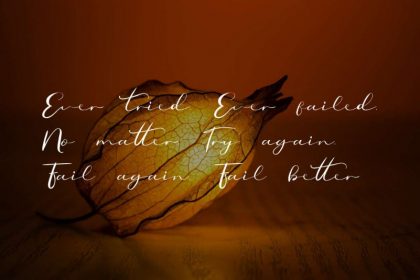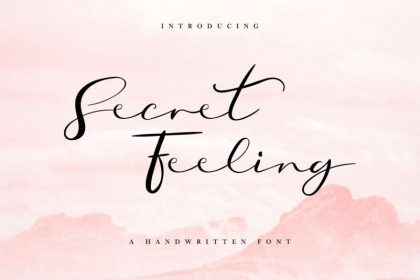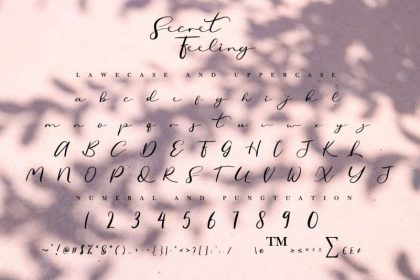
Secret Feeling Calligraphy Font
Introducing Secret Feeling Calligraphy Font. From the office of EdricStudio. Secret Feeling is a Calligraphy font typeface. It has very unique characters glyphs. It has also few alternatives glyphs so it will be awesome. Also it has international language glyphs . Secret Feeling works on PC & Mac with Simple installations. Accessible in the Adobe Illustrator, Adobe Photoshop, Adobe InDesign, even work on Microsoft Word. It’s also PUA Encoded Characters – Fully accessible without additional design software.